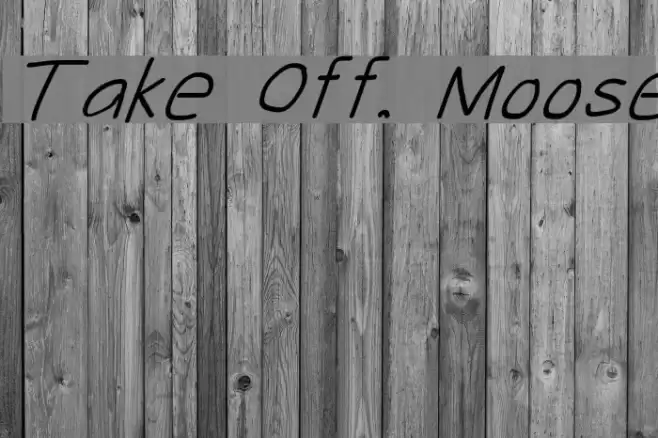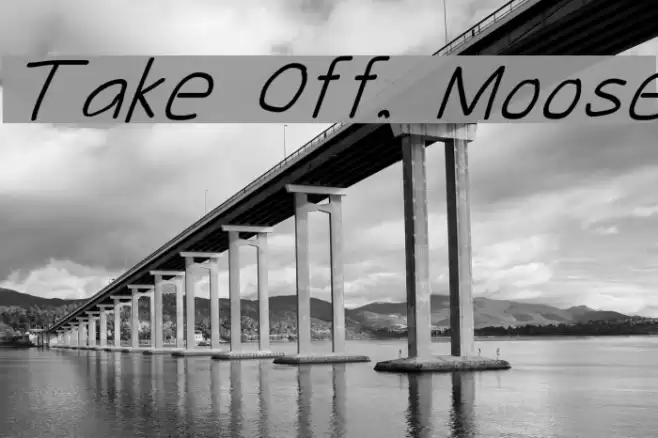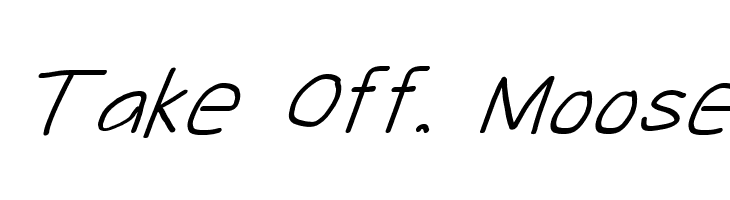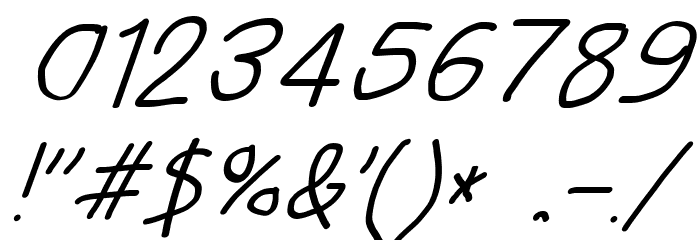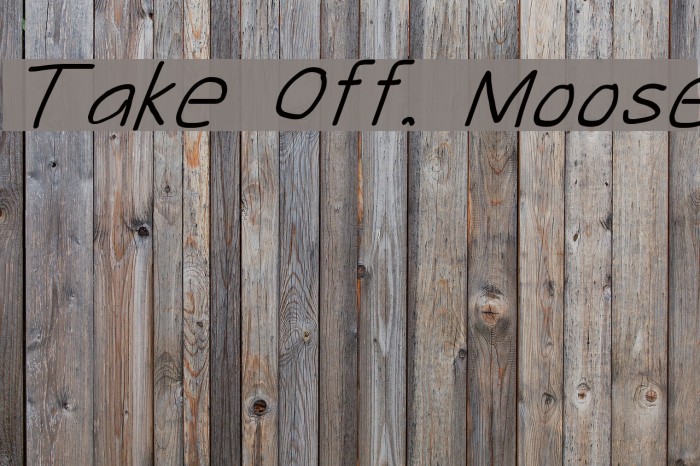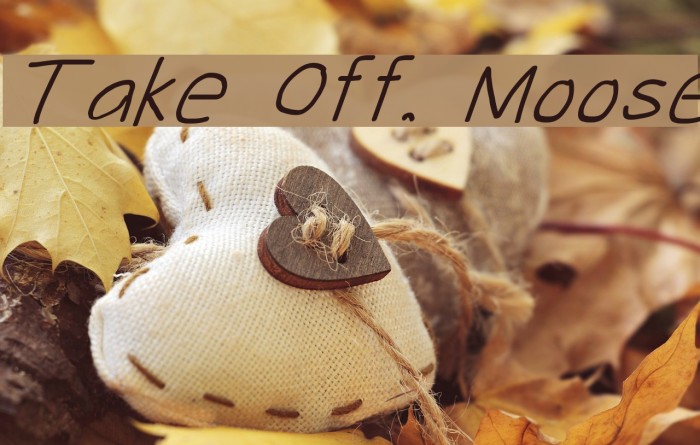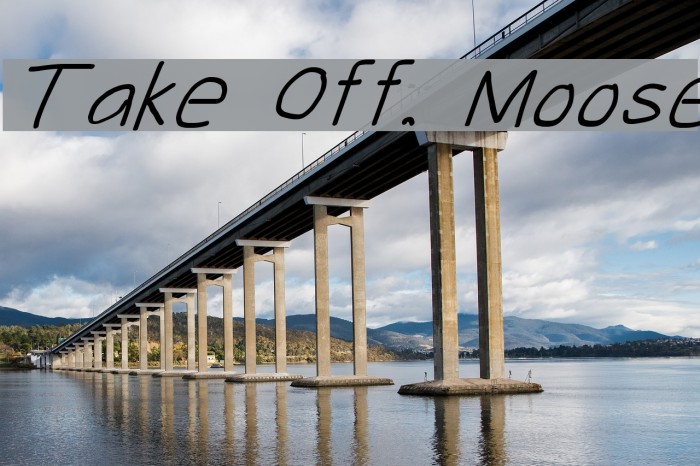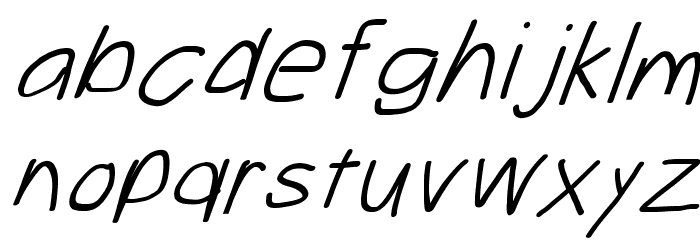
Take Off, Moose Font
Take Off, Moose Description
This font features a casual, handwritten style with a smooth, flowing appearance. The characters are slightly slanted, giving it a dynamic and informal feel. Uppercase and lowercase letters are well-proportioned, maintaining a consistent stroke width throughout. The numerals and special characters complement the alphabet with a cohesive design. Its playful yet legible nature makes it suitable for a variety of creative applications. The font's simplicity and elegance make it versatile for both digital and print media.
A casual, handwritten font with a smooth, flowing style from Uncategorized fonts.
- Proposed Projects: Ideal for greeting cards, invitations, personal branding, and creative projects requiring a personal touch.
- Overall Style: Casual
- Use Case: Logos, Invitations, Personal Branding